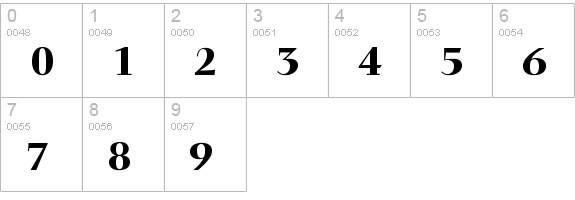
Nofret BQ Medium Font Details
Nofret BQ Medium is a balanced, medium-weight variant in the Nofret typeface family \xE2\x80\x94 well suited to sub-headlines, navigation, and balanced editorial work.
Nofret BQ Medium font is a versatile and elegant typeface that exudes sophistication and modernity. Its balanced letterforms and clean lines make it perfect for a wide range of design projects, from branding to editorial design. The medium weight of this font strikes the perfect balance between readability and style, making it suitable for both headers and body text. What's even better is that Nofret BQ Medium font is available for free download at FontsMarket.com. This means that you can easily access and use this beautiful typeface in your projects without any cost. Don't miss out on this opportunity to enhance your designs with the timeless beauty of Nofret BQ Medium font. Download it now and elevate your typography game to the next level.